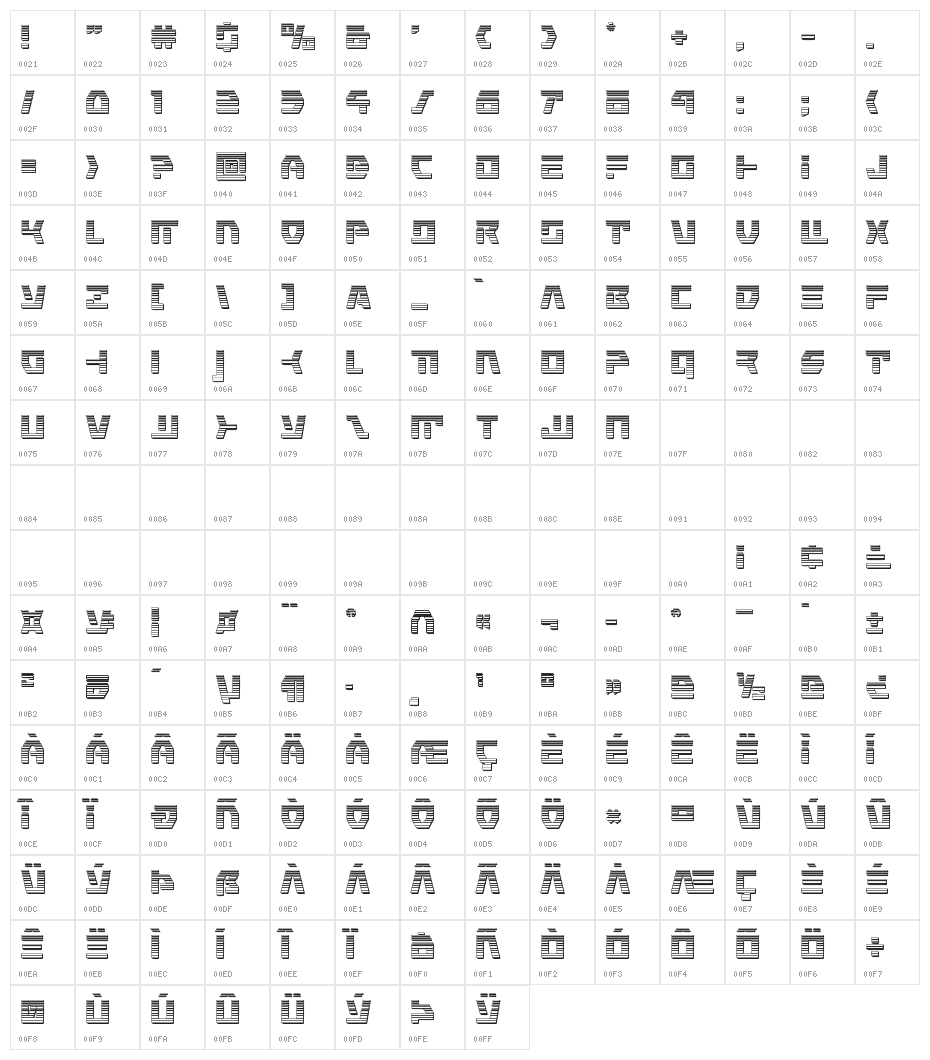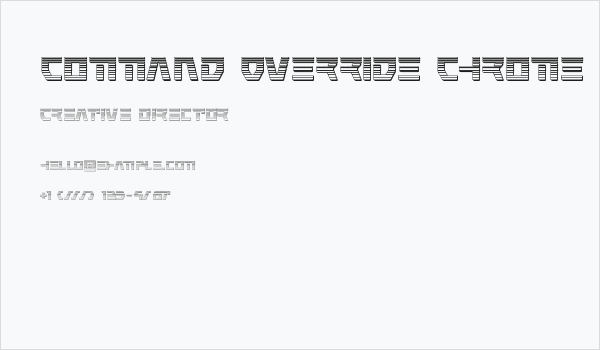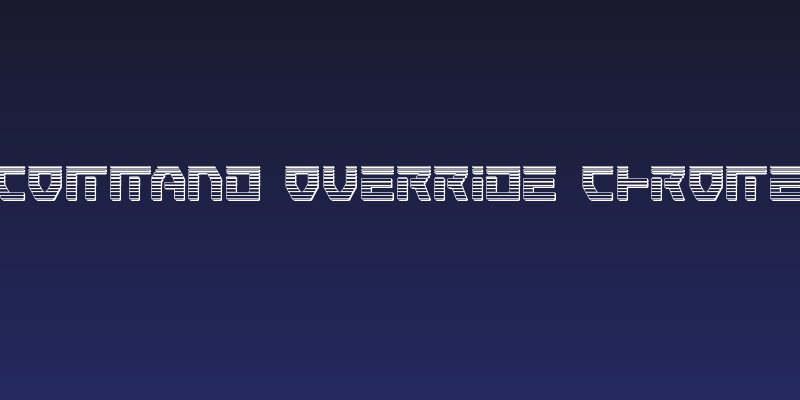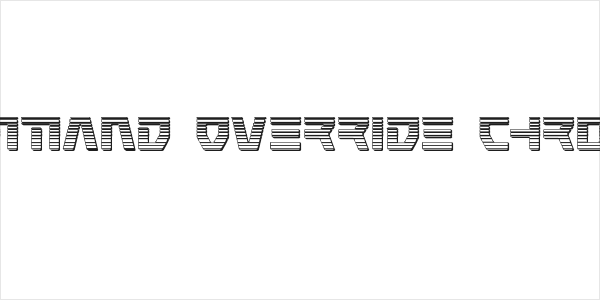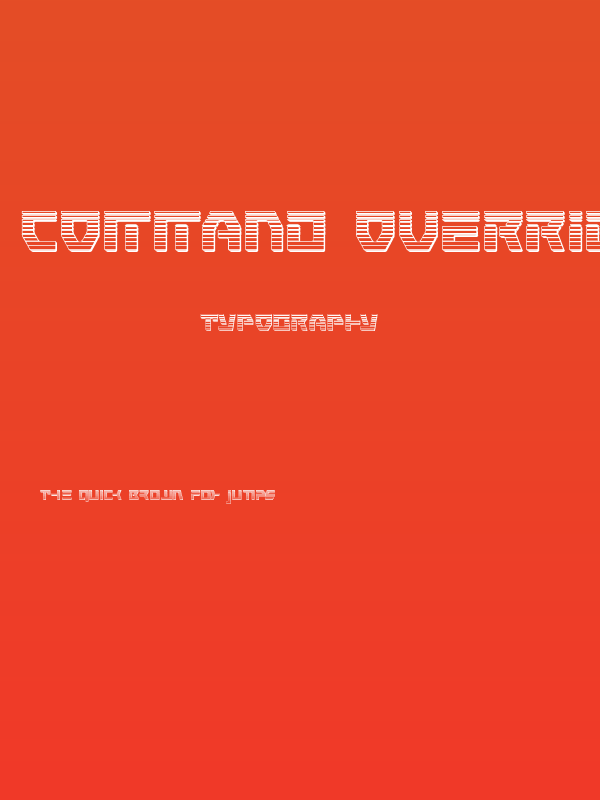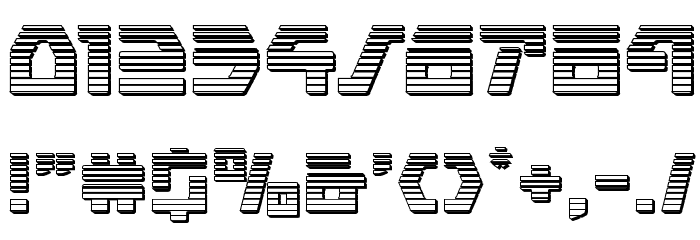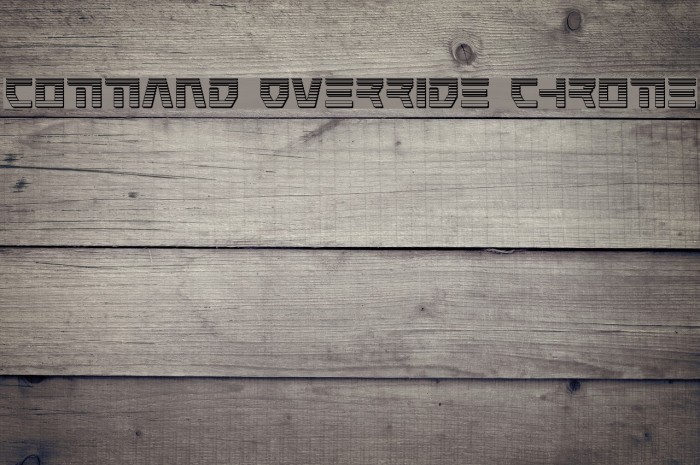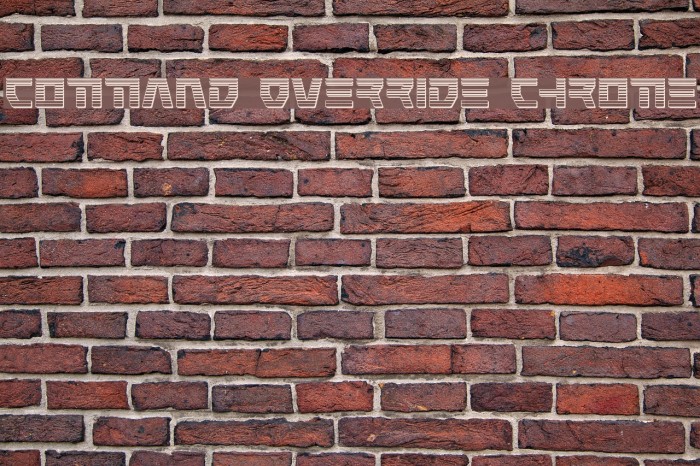
Command Override Chrome Font
Command Override Chrome Description
This font features a bold, futuristic design with a distinct three-dimensional effect created by layered lines. Each character is constructed with a series of parallel horizontal lines, giving it a unique, striped appearance. The geometric structure of the letters is emphasized by sharp angles and straight edges, creating a sense of movement and depth. The font is highly stylized, making it ideal for projects that require a modern and dynamic look. Its intricate design is best suited for larger displays where the details can be fully appreciated.
| Proposed Projects | Ideal for sci-fi themed posters, video game titles, or technology-related branding. |